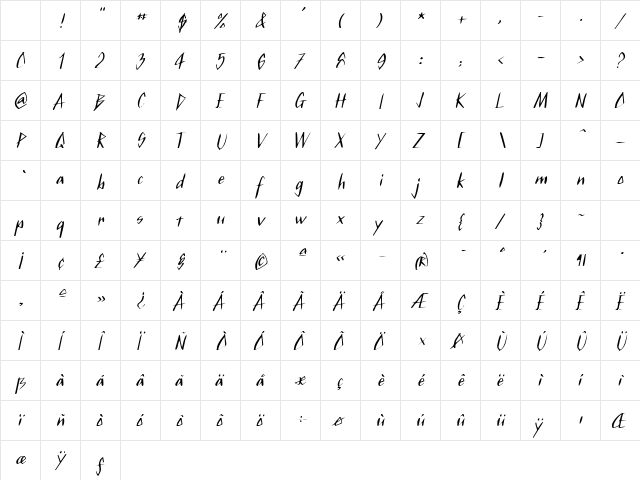
KurtzExtended is a composed and adaptable typeface that performs quietly and consistently across a wide range of design contexts. The slanted form adds forward momentum and visual energy.
Pro Tip: Use KurtzExtended for emphasis, pull quotes, and subheadings where its slanted energy can add rhythm to the layout.